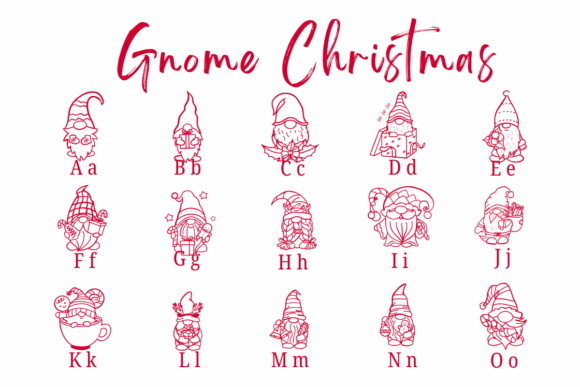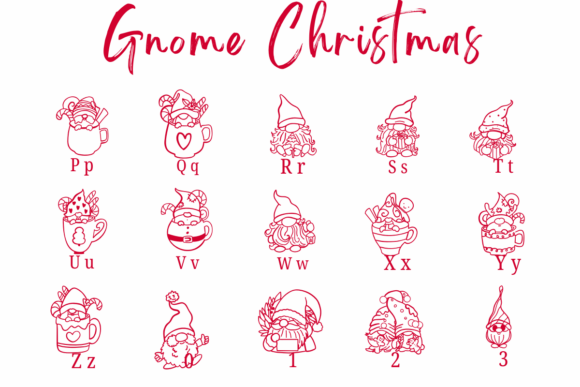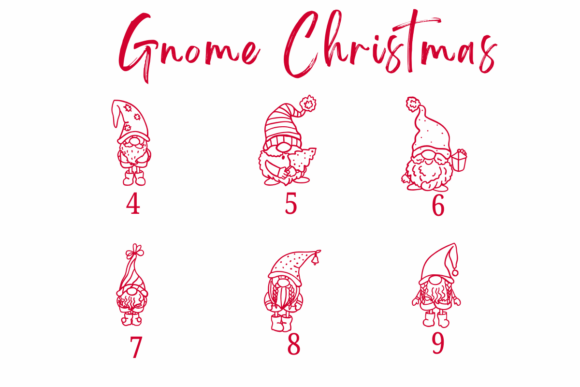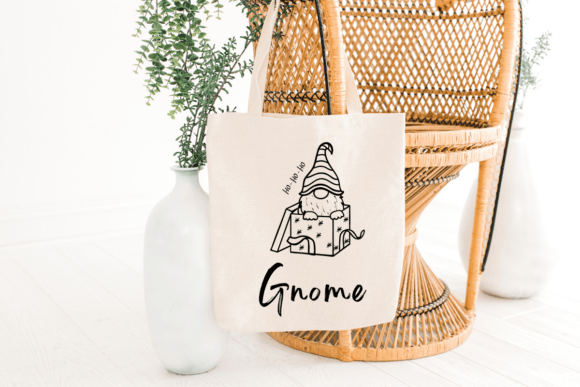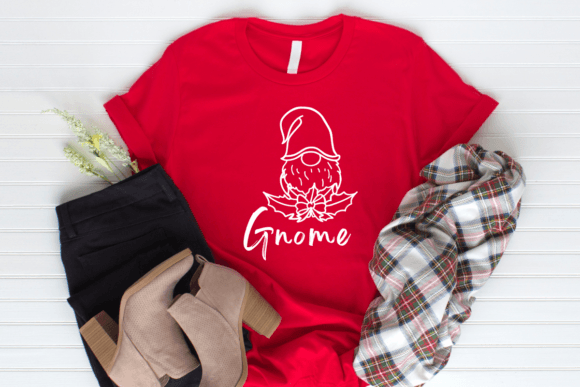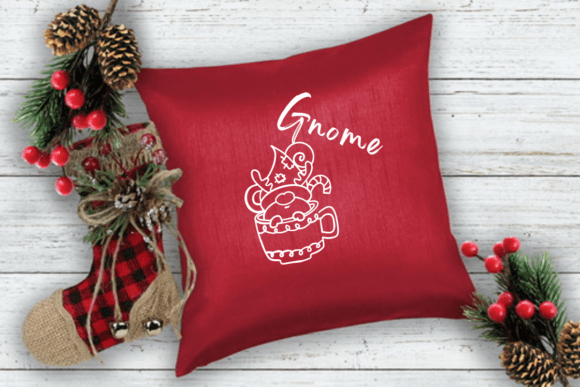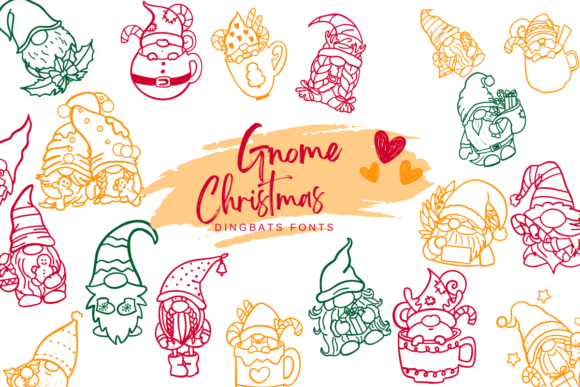
Gnome Christmas Font: Add a Playful Touch to Your Holiday Celebrations
The holiday season is upon us, and what better way to get into the festive spirit than with a fun and playful font? Look no further than the Gnome Christmas Font, a delightful dingbat font that features cute gnomes in festive holiday themes. This charming font is perfect for adding a touch of whimsy to your Christmas projects, from cards and decorations to crafts and more.
What is Gnome Christmas Font?
Gnome Christmas Font is a unique and fun dingbat font that showcases a different gnome design for each character. The font features adorable gnomes in various festive holiday settings, from snowflakes and Santa hats to Christmas trees and stockings. With its playful and cheerful designs, this font is sure to bring a smile to anyone’s face.
How to Use Gnome Christmas Font
The Gnome Christmas Font is incredibly versatile and can be used in a variety of ways to add a playful touch to your holiday projects. Here are a few ideas to get you started:
- Christmas Cards: Use the Gnome Christmas Font to create one-of-a-kind Christmas cards for your loved ones. Simply type out your message using the font, and add a festive gnome design to the front of the card.
- Holiday Decorations: Add a touch of gnome cheer to your holiday decorations by using the font to create festive signs, banners, and garlands.
- Crafts: The Gnome Christmas Font is perfect for adding a playful touch to your holiday crafts, from gift tags and gift wrap to ornaments and more.
Why Choose Gnome Christmas Font?
With so many fonts to choose from, why should you choose the Gnome Christmas Font? Here are just a few reasons:
- Unique and Playful Designs: The Gnome Christmas Font features unique and playful designs that are sure to stand out from the crowd.
- Easily Customizable: The font is easily customizable, allowing you to adjust the size, color, and style to fit your needs.
- Perfect for Holiday Projects: The font is specifically designed for holiday projects, making it the perfect choice for Christmas cards, decorations, and crafts.
Tips for Using Gnome Christmas Font
Here are a few tips for using the Gnome Christmas Font:
- Experiment with Different Sizes: Don’t be afraid to experiment with different sizes to find the perfect fit for your project.
- Combine with Other Fonts: Combine the Gnome Christmas Font with other fonts to create a unique and eye-catching design.
- Use in Digital Projects: The font can be used in digital projects, such as social media graphics and holiday e-cards.
The Gnome Christmas Font is a fun and playful dingbat font that is perfect for adding a touch of whimsy to your holiday projects. With its unique and playful designs, this font is sure to bring a smile to anyone’s face. Whether you’re a designer, crafter, or simply someone who loves the holiday season, the Gnome Christmas Font is a must-have for your holiday celebrations.